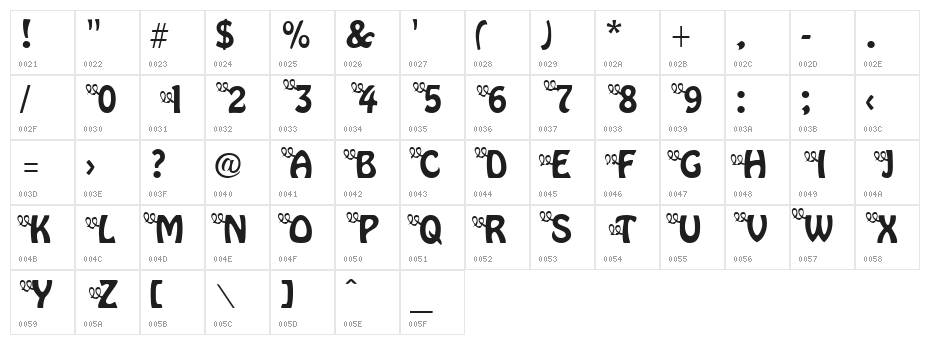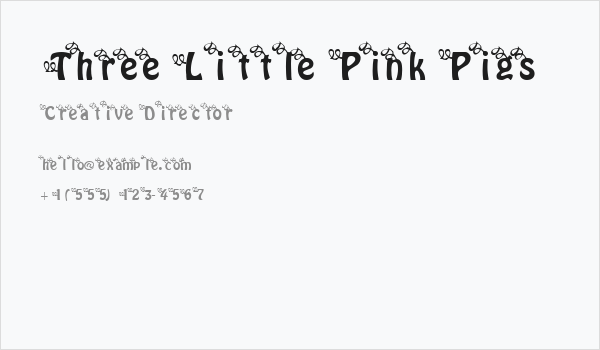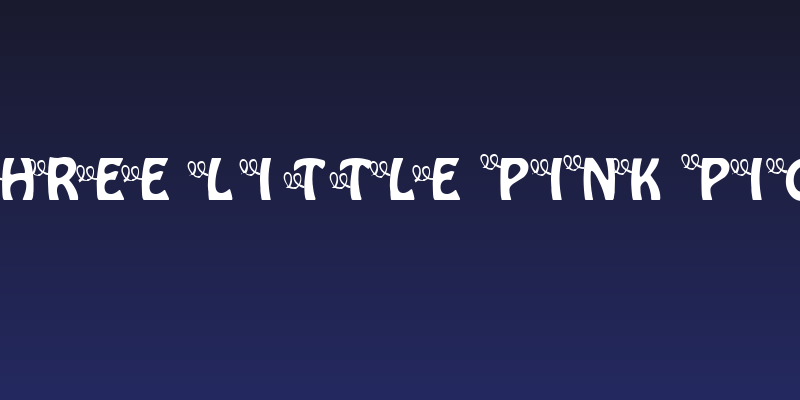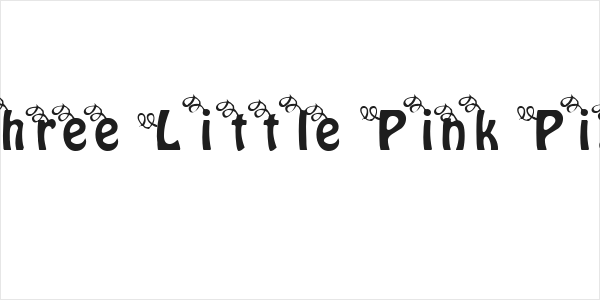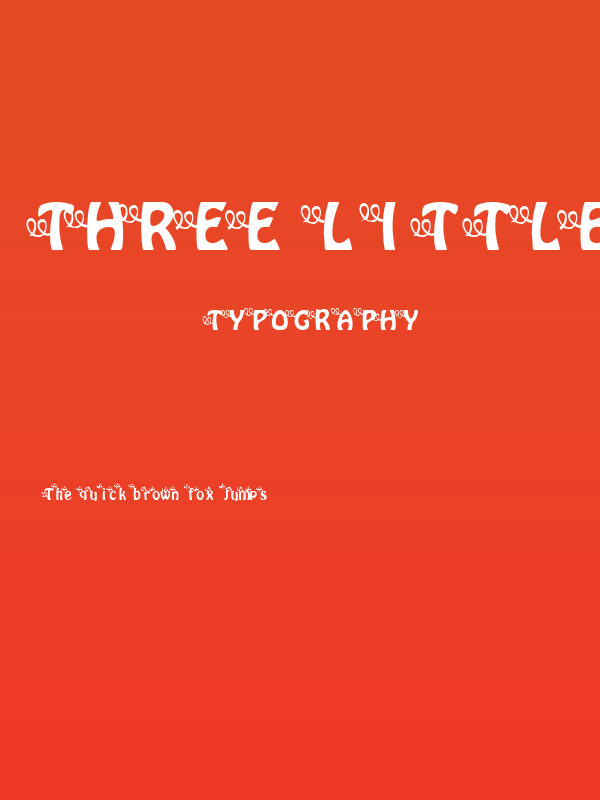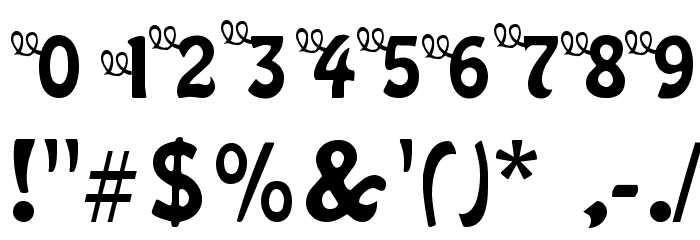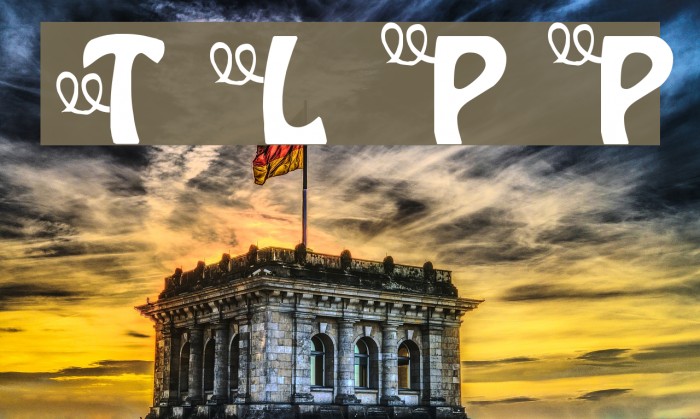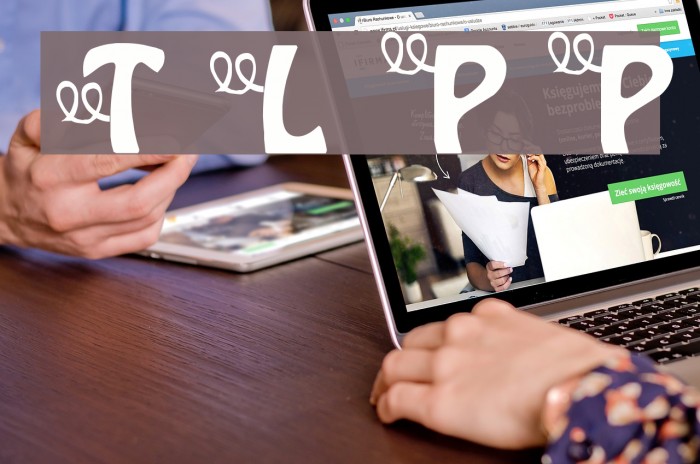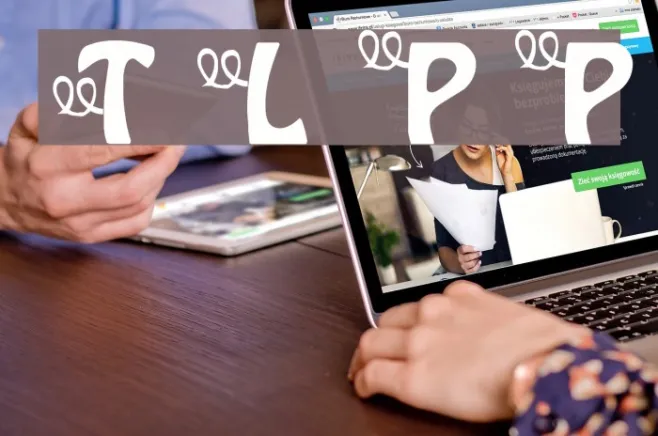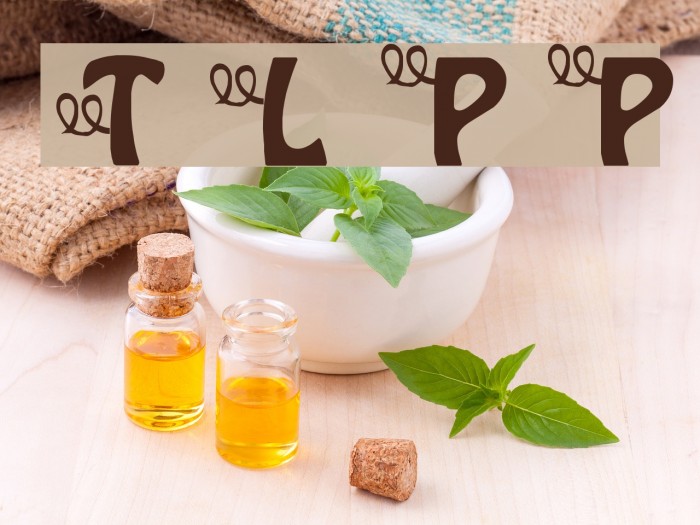
Three Little Pink Pigs Font
Three Little Pink Pigs Description
This playful and whimsical font features a unique design with curly, pig-tail-like embellishments on each character, adding a sense of fun and creativity. The letters are bold and rounded, giving them a friendly and approachable appearance. The font maintains a consistent weight throughout, ensuring readability while still being decorative. The numbers and special characters follow the same playful style, making the font versatile for various uses. Its distinctive style makes it ideal for projects that require a touch of humor and lightheartedness.
| Overall Style | Whimsical |
| Proposed Projects | Ideal for children's books, playful branding, party invitations, and whimsical posters. |